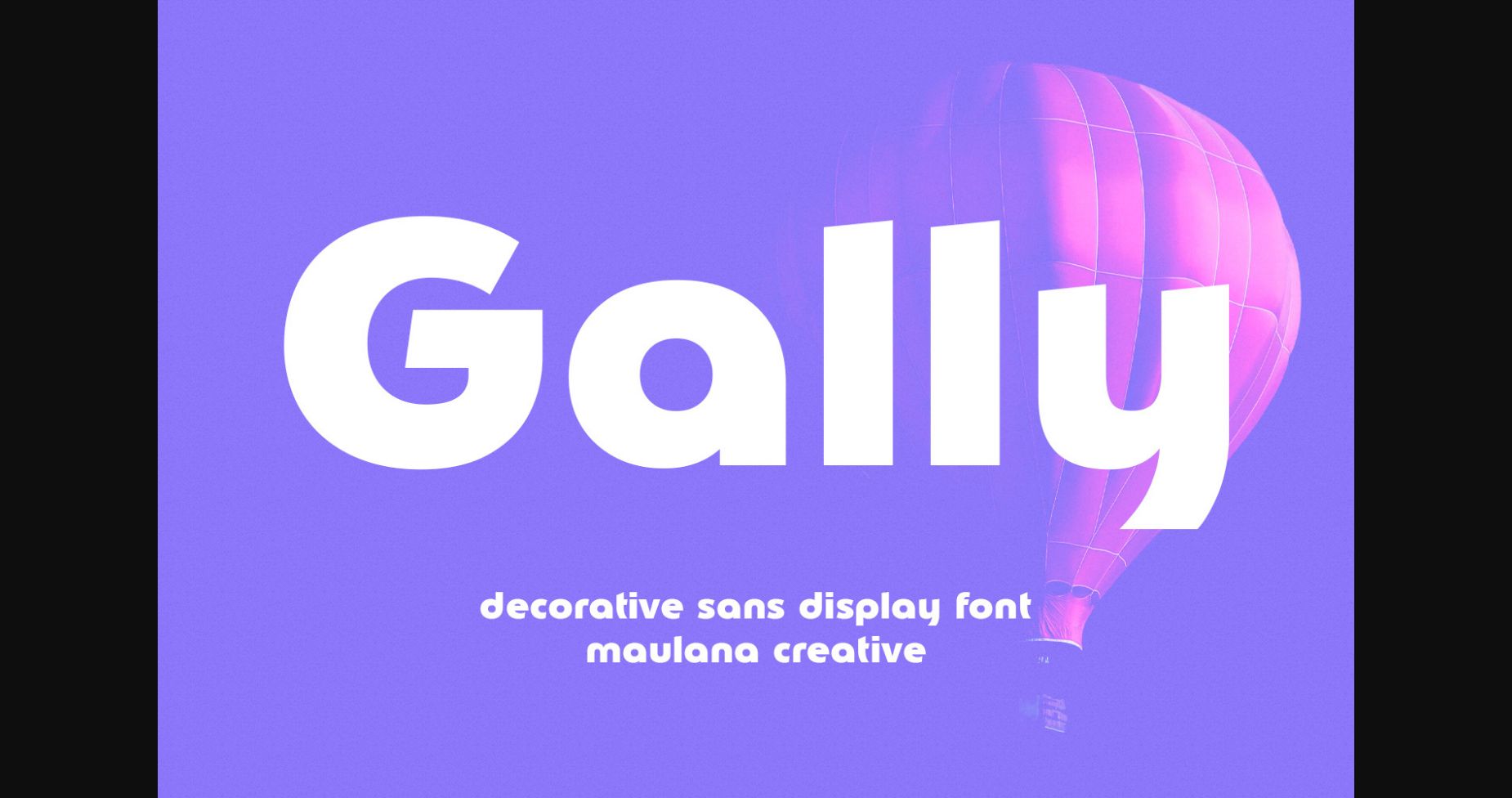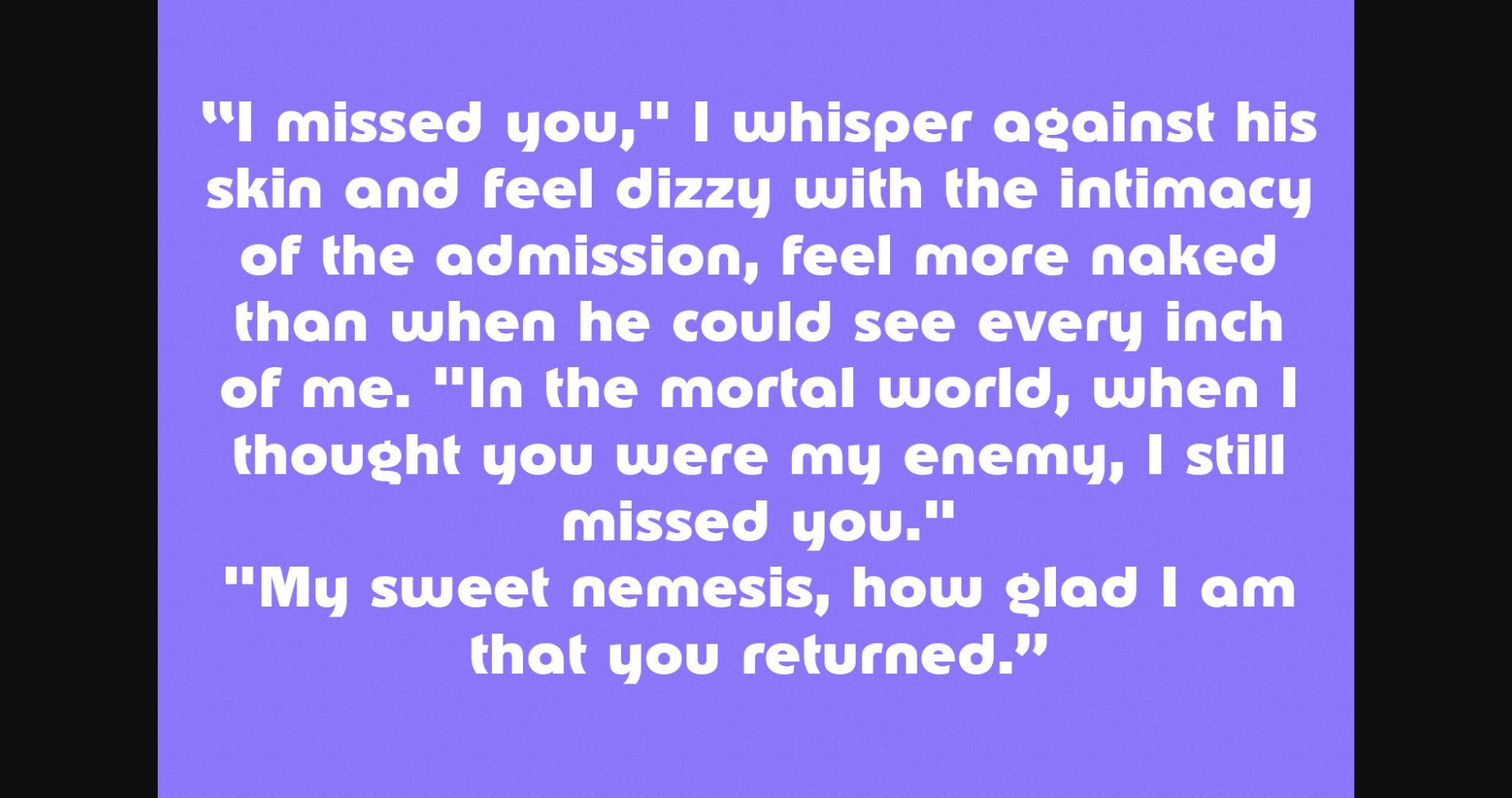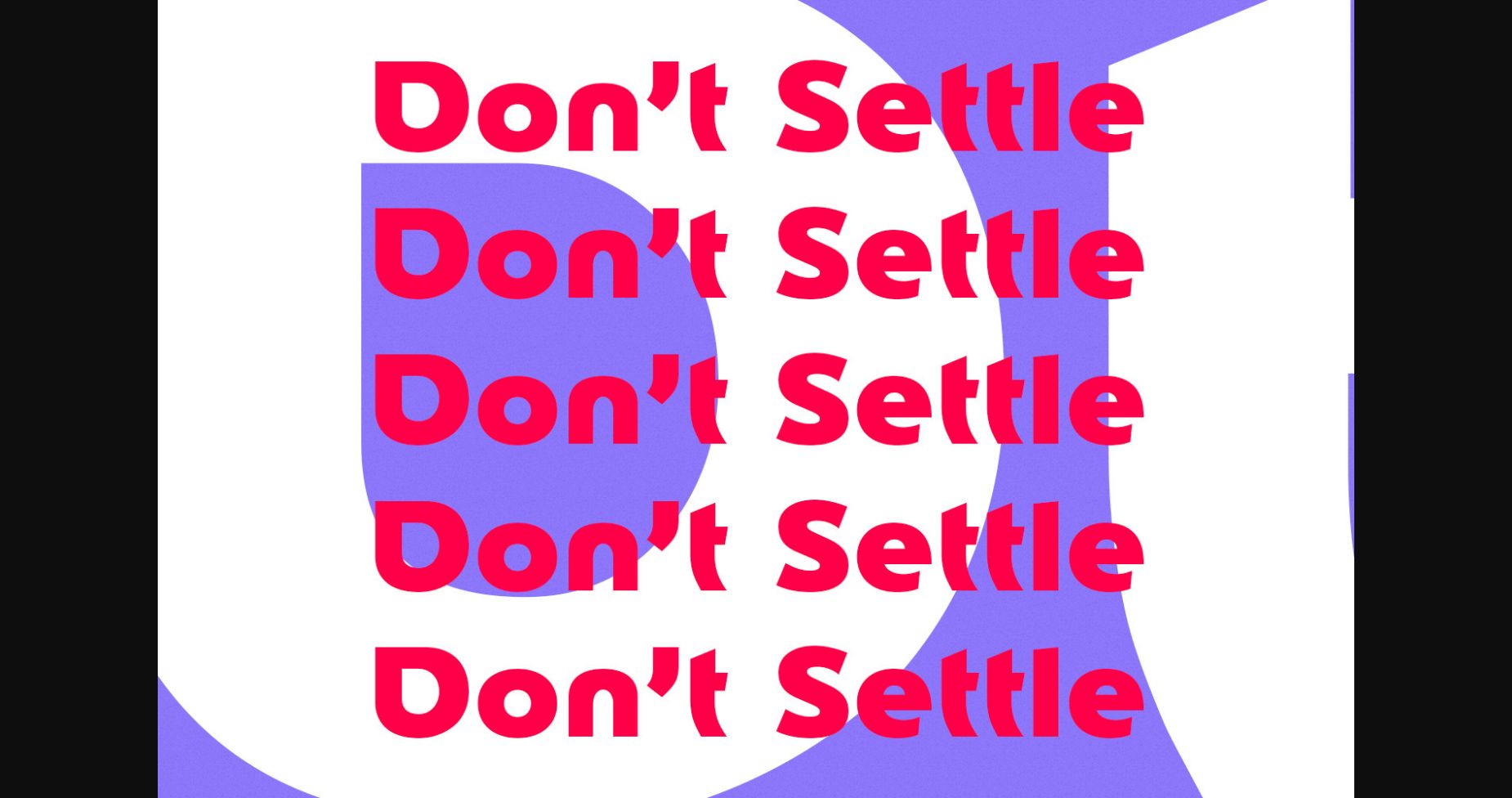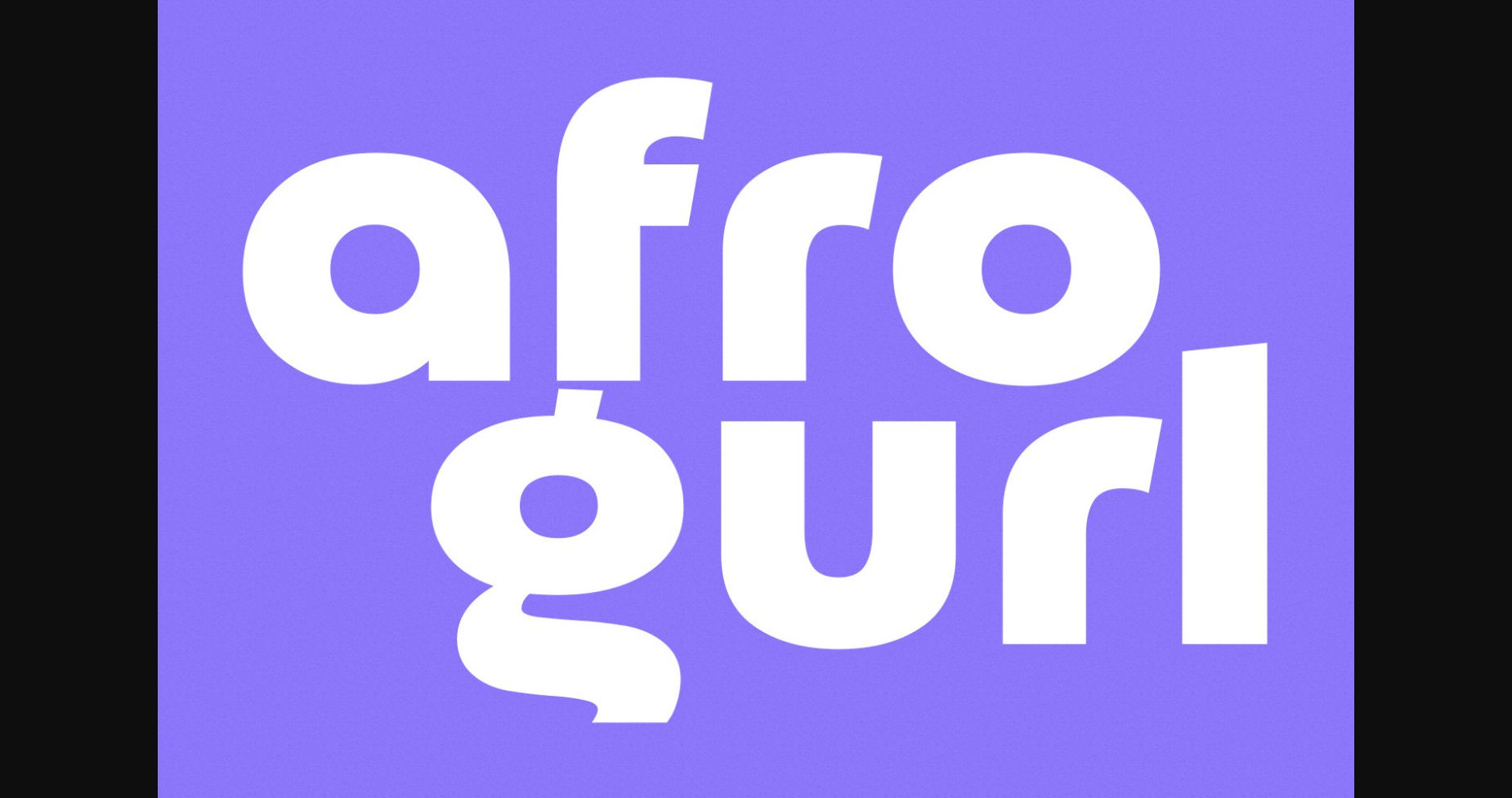
About Gally Font
Gally is a modern decorative sans display font. Bold stroke, fun character with a bit of ligatures and alternates. To give you an extra creative work. Gally font support multilingual more than 100+ language. This font is good for logo design, Social media, Movie Titles, Books Titles, a short text even a long text letter and good for your secondary text font with script or serif. Make a stunning work with Gally font.